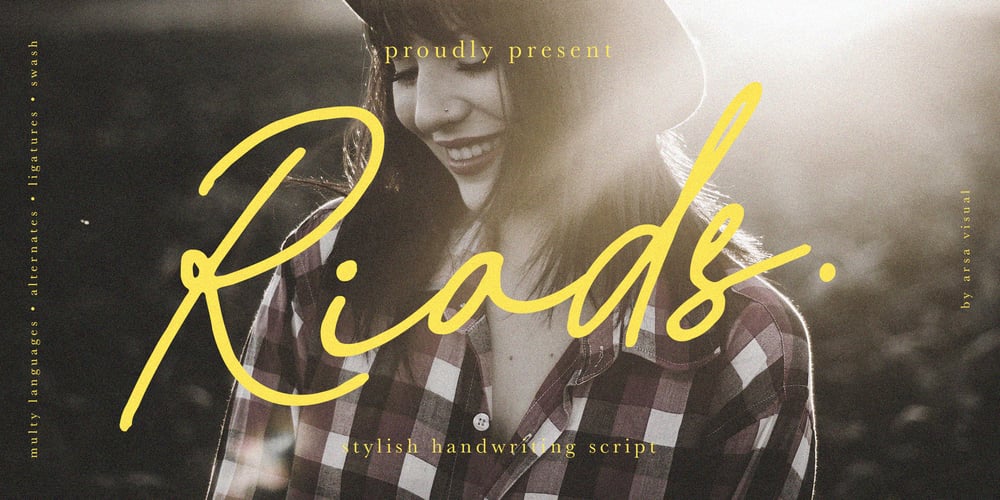
Riads Script
Riads Script font
Riads Script Font Family was designed by I Gede Sugiantara and published by Arsa Visual. Riads Script contains 1 styles and family package options. Introducing “Riads – Stylish Handwriting Font” with a signature style look. “Riads Script” very recommended for you who want to make some designs with natural handwriting style. This font easy to use and perfect for elegant branding, greeting cards, wedding design, name card design, invitation design, poster, packaging, romantic book cover designs, handwritten quotes, unique social media post, and so much more.Feature and what inside: • Uppercase and Lowercase • Uppercase and Lowercase Alternates • Number and Punctuation • Ligature • Swashes • Multi Languages